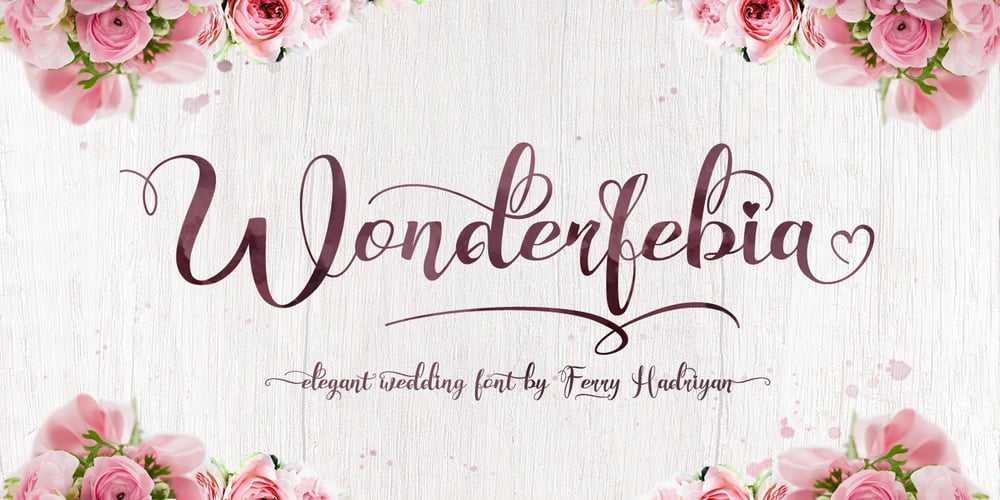
Wonderfebia Font Family was designed by Ferry Hadriyan and published by FHFont. Wonderfebia contains 2 styles and family package options. Wonderfebia is Script Wedding Font with modern calligraphy style so much opentype feature include of the font. Suitable for design, element design, wedding, event, t-shirt, logo, badges, sticker, and awesome work.